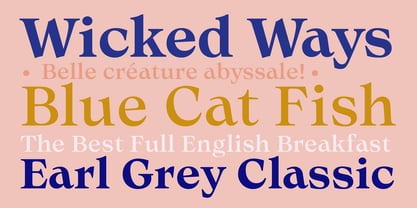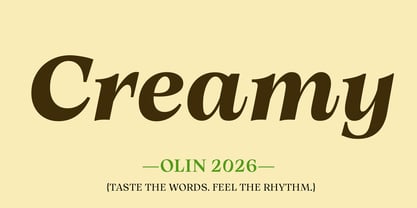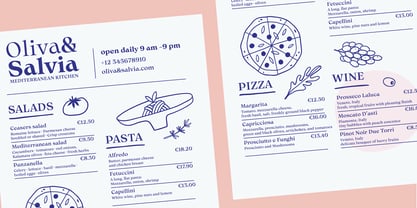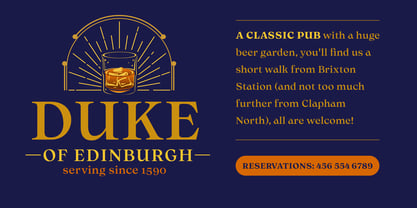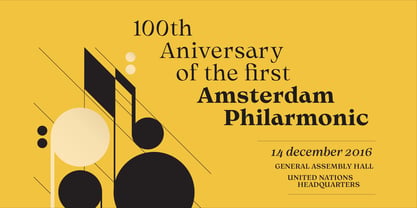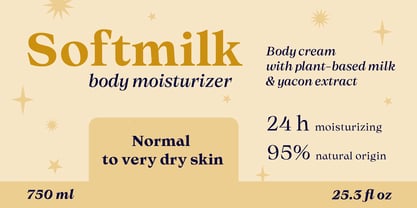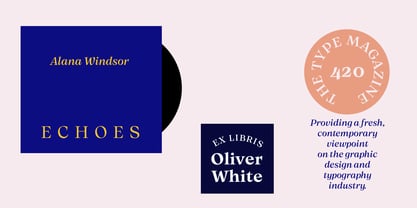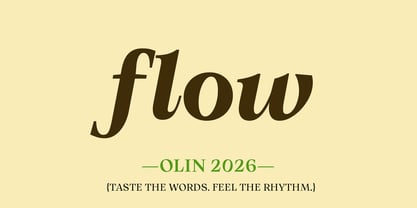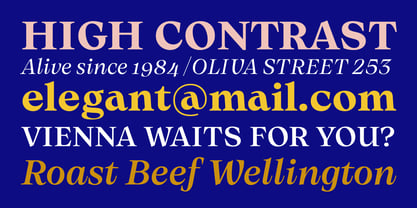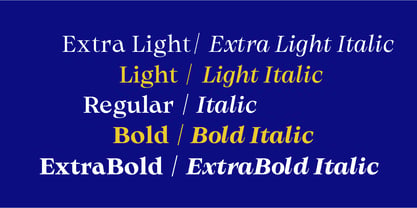
Olin
Die Schriftfamilie Olin wurde von Dafne Martínez entworfen und von Sudtipos veröffentlicht. Olin enthält 12 Stile und Familienpaketoptionen. Mehr über diese Familie
Olin is a high-contrast serif with a distinctive diagonal rhythm—smooth, precise, and expressive. It balances elegance and warmth, making it especially suited for editorial contexts where character and readability matter equally. Designed for magazines, restaurant identities, bars, and cultural projects, Olin comes in five weights with matching italics, supports a wide range of Latin languages, and is also available as a variable font.